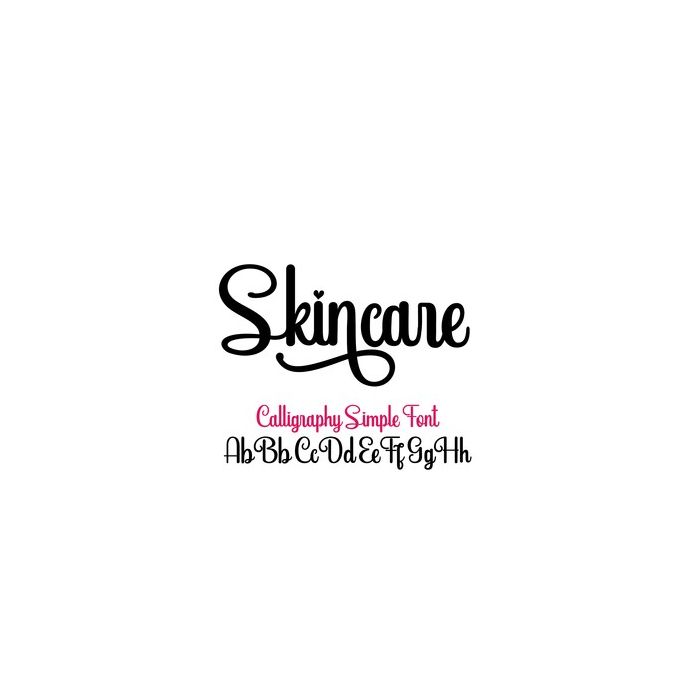
Skincare This handwriting is in cursive form with an elegant font that is clear and easy to read, specifically designed for your design needs with the latest characters, of course very attractive for today's market, because this script font shape is unique and has special features. characters that you can combine in your designs. Now go ahead and use it for whatever project you need it for, products, crafts, invitations, and personalization. Includes alphabet, numbers, and punctuation.